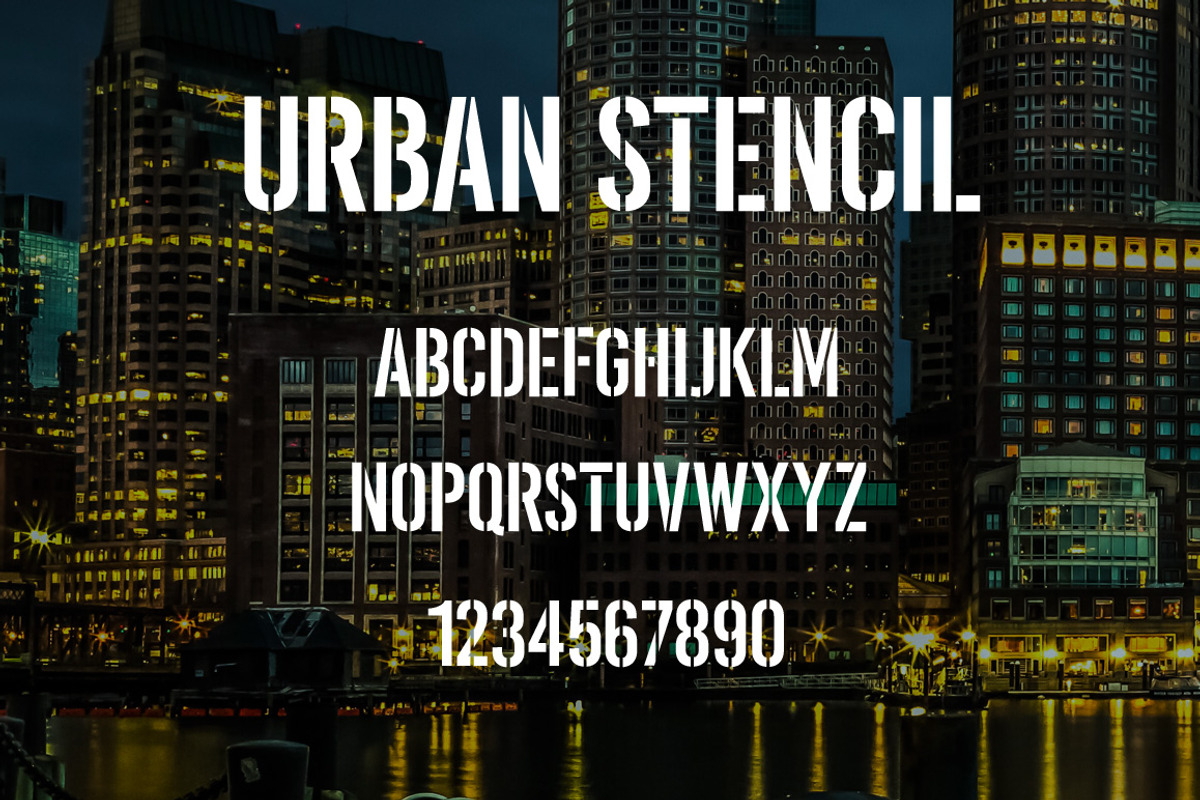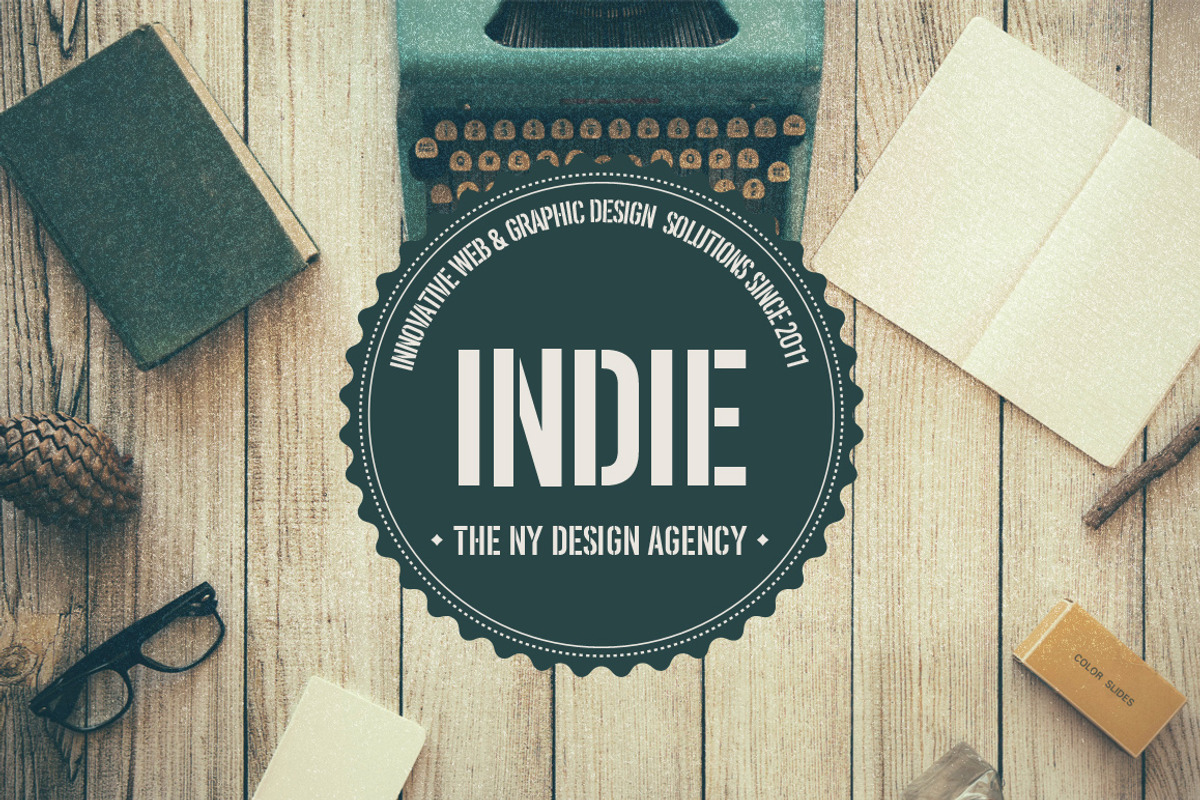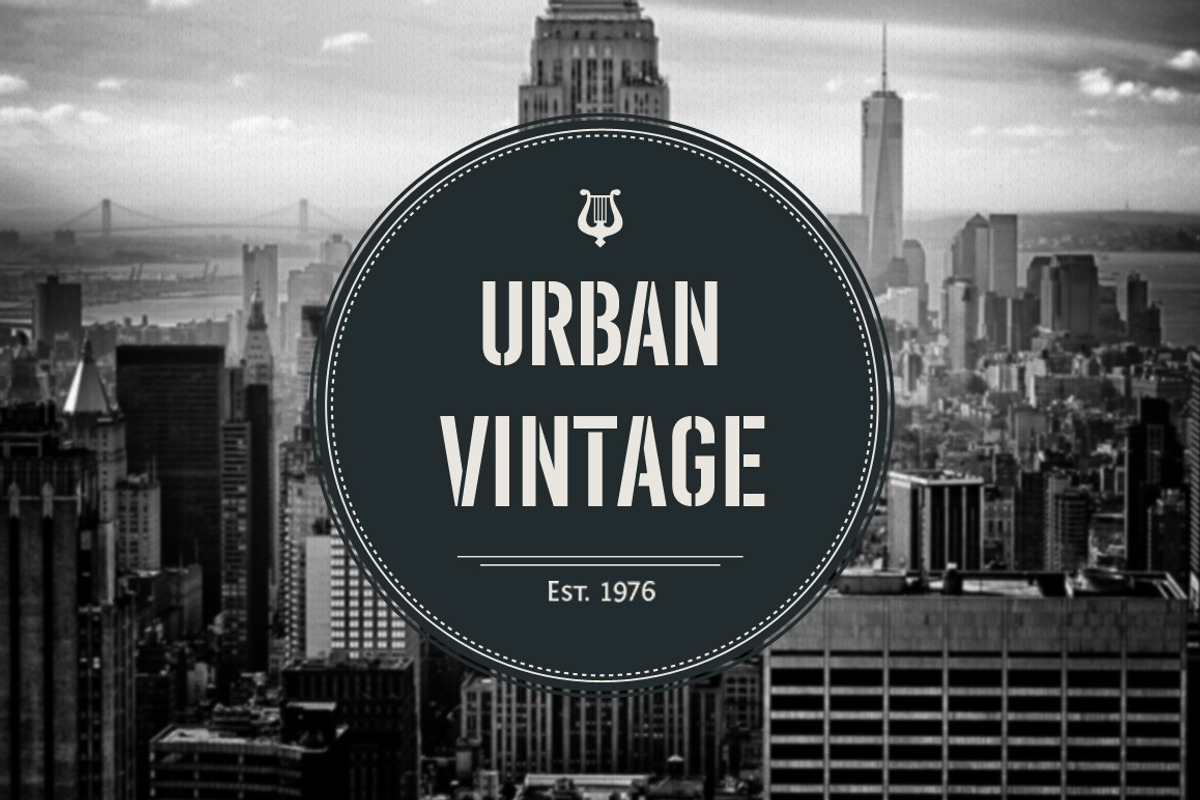
Urban Stencil Display Font
Urban Stencil Display Font by vladocar is a font selected for branding, posters, packaging, typography.
Why Urban Stencil Display Font is worth a look
Urban Stencil Display Font by vladocar fits naturally into Branding, posters, packaging, typography.